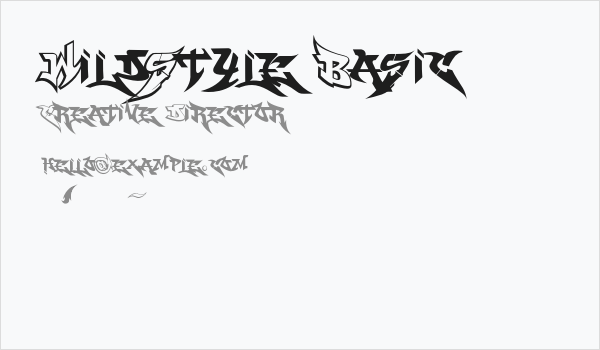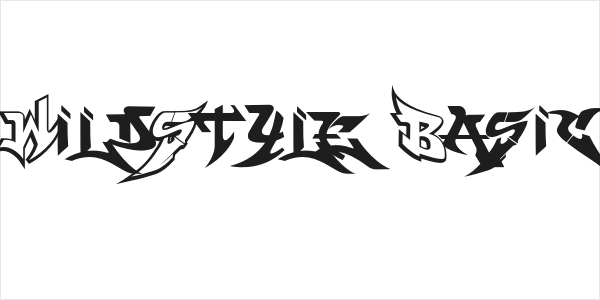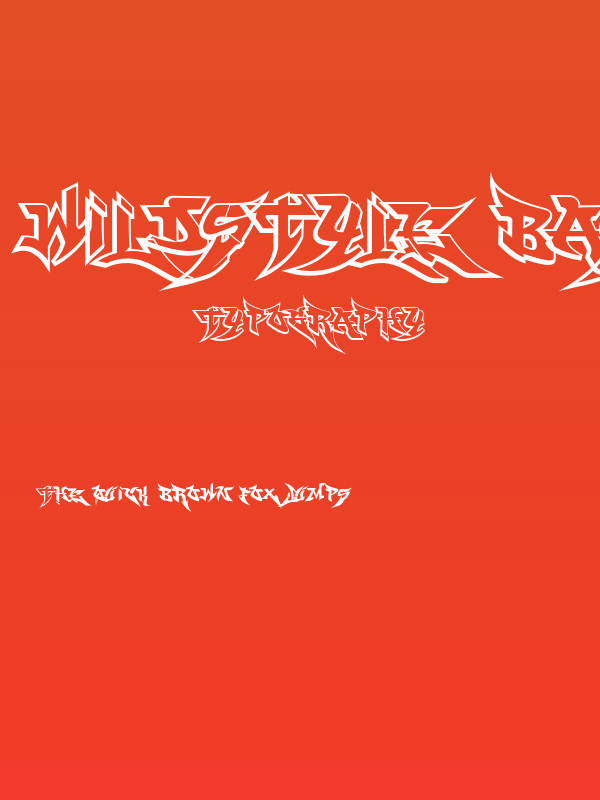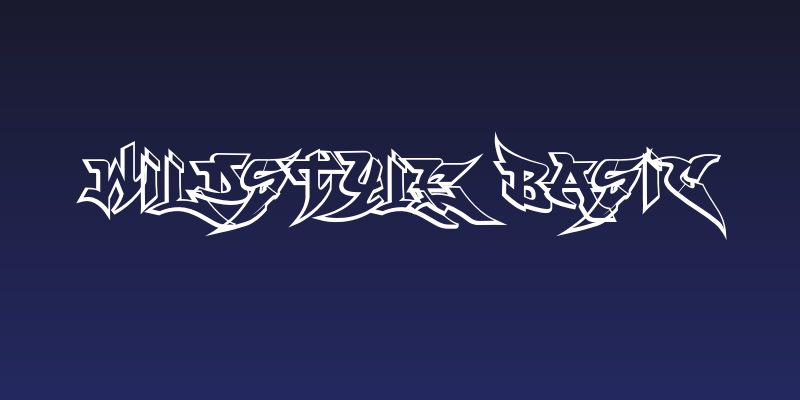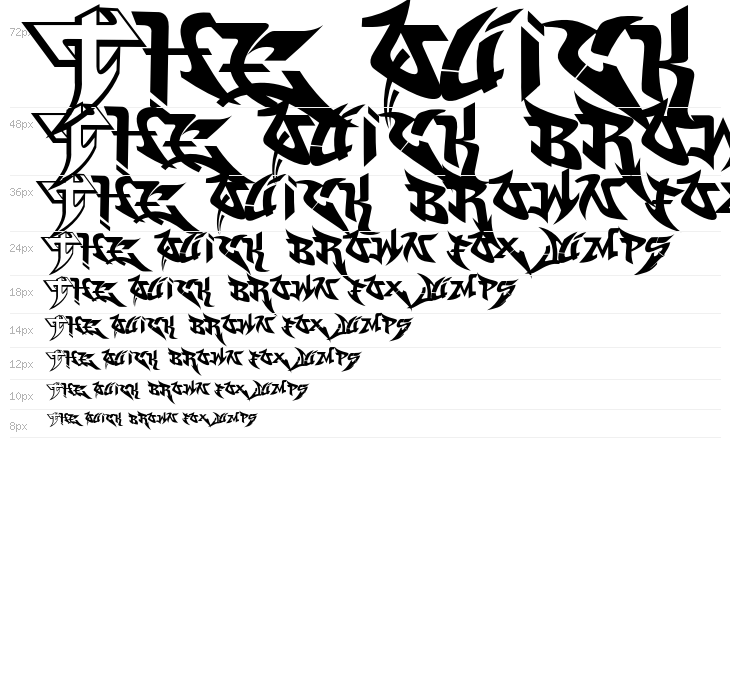
WildStyle_Basic Font
WildStyle_Basic Description
This font exhibits a bold and dynamic graffiti-inspired style, characterized by sharp angles, intricate details, and a sense of movement. The letters are highly stylized, with exaggerated curves and points that give them an edgy, rebellious feel. The uppercase and lowercase letters maintain a consistent theme, while the numbers and special characters are equally expressive, adding to the overall aesthetic. This font is designed to stand out, making a strong visual impact with its unique and artistic flair.
Proposed ProjectsIdeal for street art designs, urban-themed posters, music album covers, and edgy branding projects.